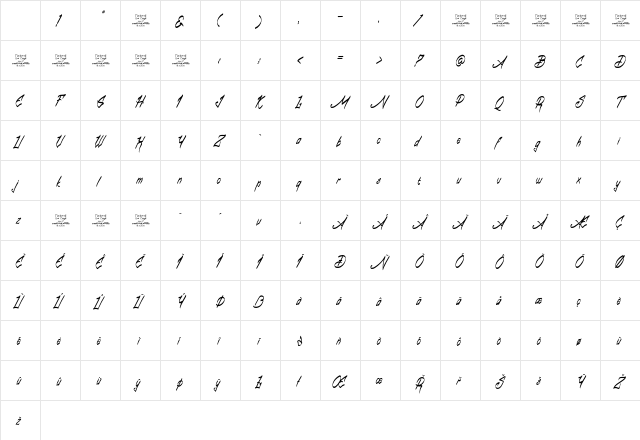
Complete Babball Personal Use Regular glyph index. Displaying only characters natively supported by Babball Personal Use Regular font.
Babball Personal Use is a composed and adaptable typeface that performs quietly and consistently across a wide range of design contexts.